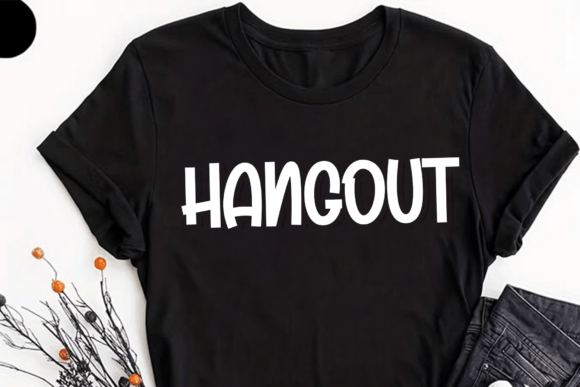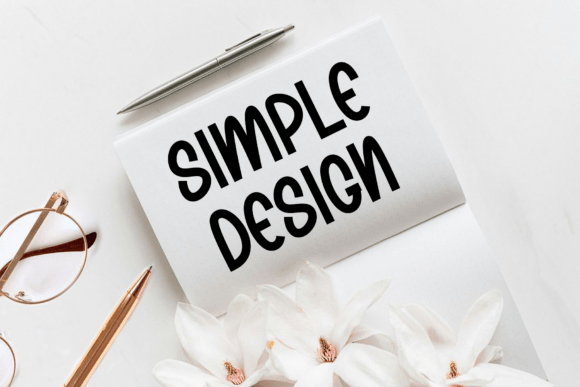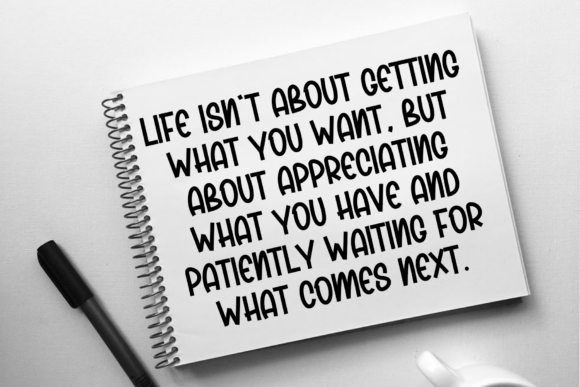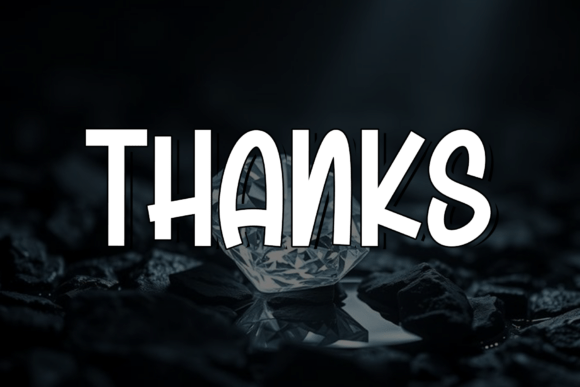
Diamond Font: Elevate Your Designs with Elegance and Edge
In the world of typography, fonts play a crucial role in conveying the tone and personality of a brand or design. For those seeking a typeface that exudes luxury, modernity, and sophistication, the Diamond Font is an exceptional choice. This bold, creative display font has been meticulously crafted to combine elegance with a punch of modern flair, making it perfect for designers and crafters looking to add drama and personality to their visual projects.
The Unique Characteristics of Diamond Font
Diamond Font features tall, narrow letterforms that instantly grab attention. Its unique cuts and subtle curves add a level of sophistication, setting it apart from more traditional typefaces. The clean, condensed silhouette of Diamond Font ensures that it can be used in a variety of contexts, from luxury branding and posters to album covers and tech products. The quirky character details, particularly in the “A” and “O”, introduce an element of playfulness and edge, making this font versatile and engaging.
Ideal Applications for Diamond Font
The futuristic yet stylish look of Diamond Font makes it an ideal choice for a range of applications. Here are some of the areas where Diamond Font truly shines:
- Luxury Branding: For brands that aim to convey elegance, sophistication, and a touch of modernity, Diamond Font is a perfect fit. Its unique style ensures that the brand stands out in a crowded market.
- Posters and Flyers: Whether you’re advertising an event, a product, or a service, Diamond Font can help you create eye-catching posters and flyers that demand attention.
- Album Covers: Musicians and music producers looking for a font that captures the essence of their music can find Diamond Font to be a compelling choice. Its bold and creative style can add a significant impact to album covers.
- Tech Products: For tech companies that want to convey innovation and forward-thinking, Diamond Font offers a sleek and modern aesthetic that aligns well with the tech industry’s ethos.
Why Choose Diamond Font?
Choosing a font for a design project can be overwhelming, given the numerous options available. However, Diamond Font stands out for several reasons:
- Versatility: Despite its bold appearance, Diamond Font can be surprisingly versatile. It can be used in various design contexts, from digital media to print.
- Legibility: The clean lines and unique cuts of Diamond Font ensure that it remains legible, even at smaller sizes, making it suitable for a range of applications.
- Uniqueness: In a sea of generic fonts, Diamond Font offers a breath of fresh air with its distinctive style. It can help designers and brands differentiate themselves.
Tips for Using Diamond Font Effectively
To make the most of Diamond Font, consider the following tips:
- Pair it with Simpler Fonts: For body text, pair Diamond Font with a simpler, more readable font to create contrast and ensure readability.
- Experiment with Colors: While Diamond Font looks stunning in bold colors, don’t be afraid to experiment with gradients, metallic finishes, or subtle textures to add depth.
- Play with Sizes: Take advantage of Diamond Font’s versatility by using it in various sizes. Larger sizes can be used for headlines, while smaller sizes can be effective for subheadings or captions.
Diamond Font is more than just a typeface; it’s a design statement. Its bold, creative, and elegant style makes it an excellent choice for designers and crafters looking to add a touch of luxury and modernity to their projects. Whether you’re working on luxury branding, posters, album covers, or tech products, Diamond Font offers the perfect blend of sophistication and edge. By incorporating Diamond Font into your designs, you’re not just choosing a font; you’re making a bold statement about your brand’s personality and style.